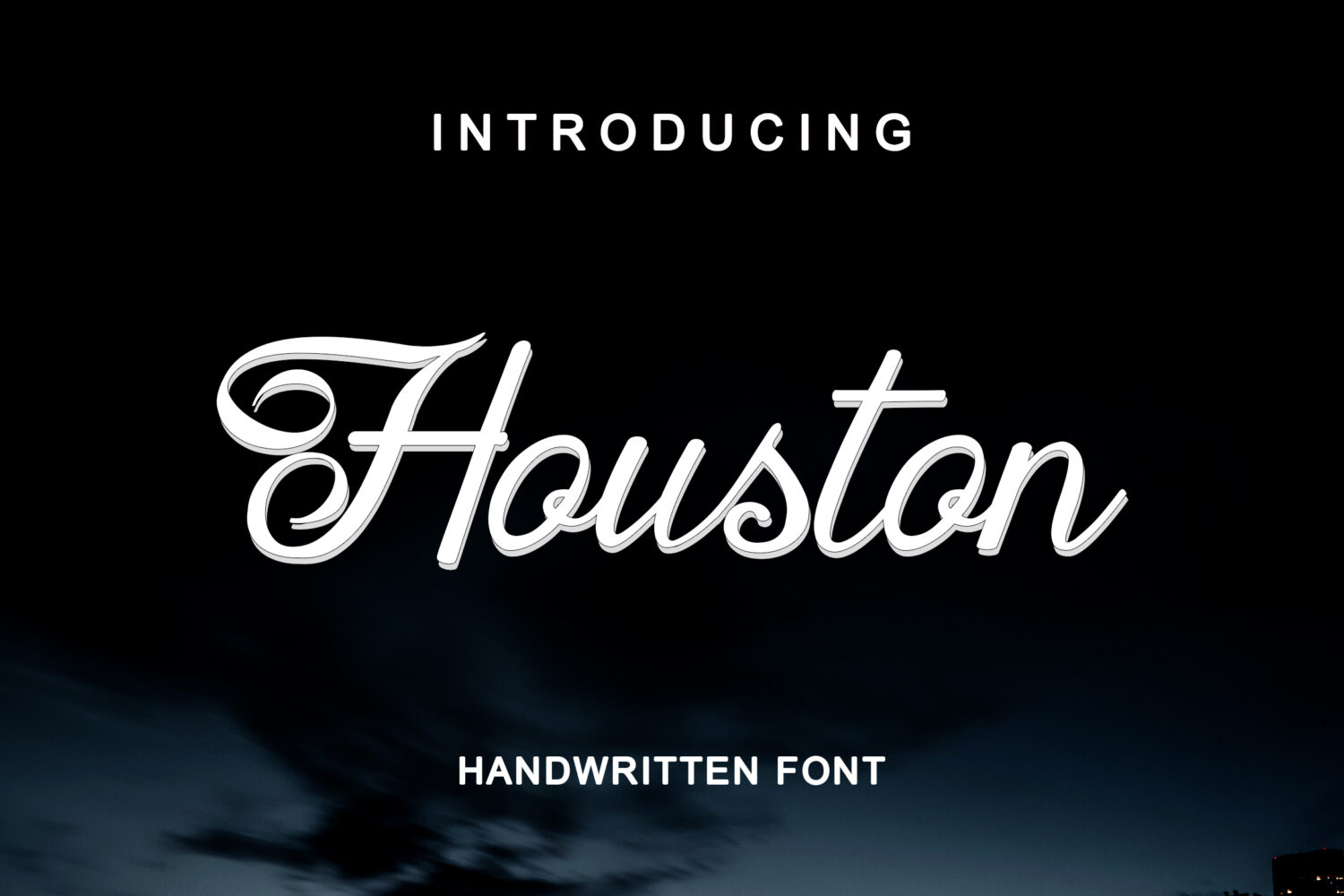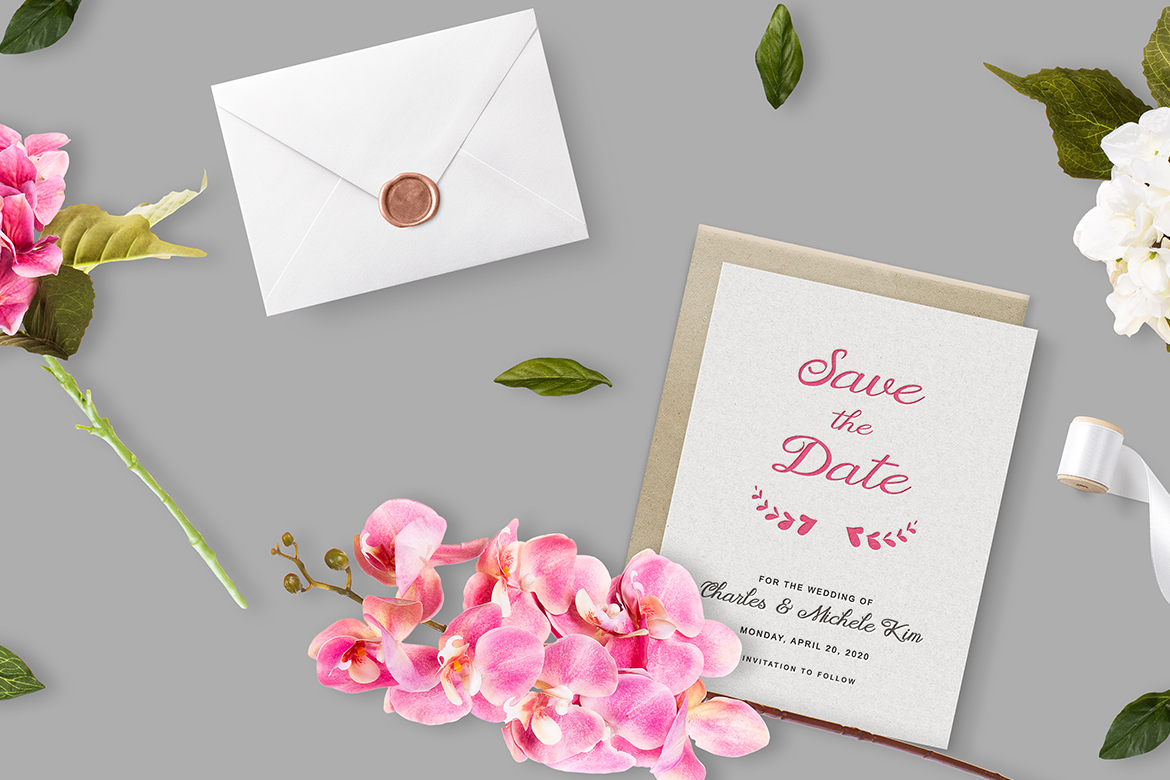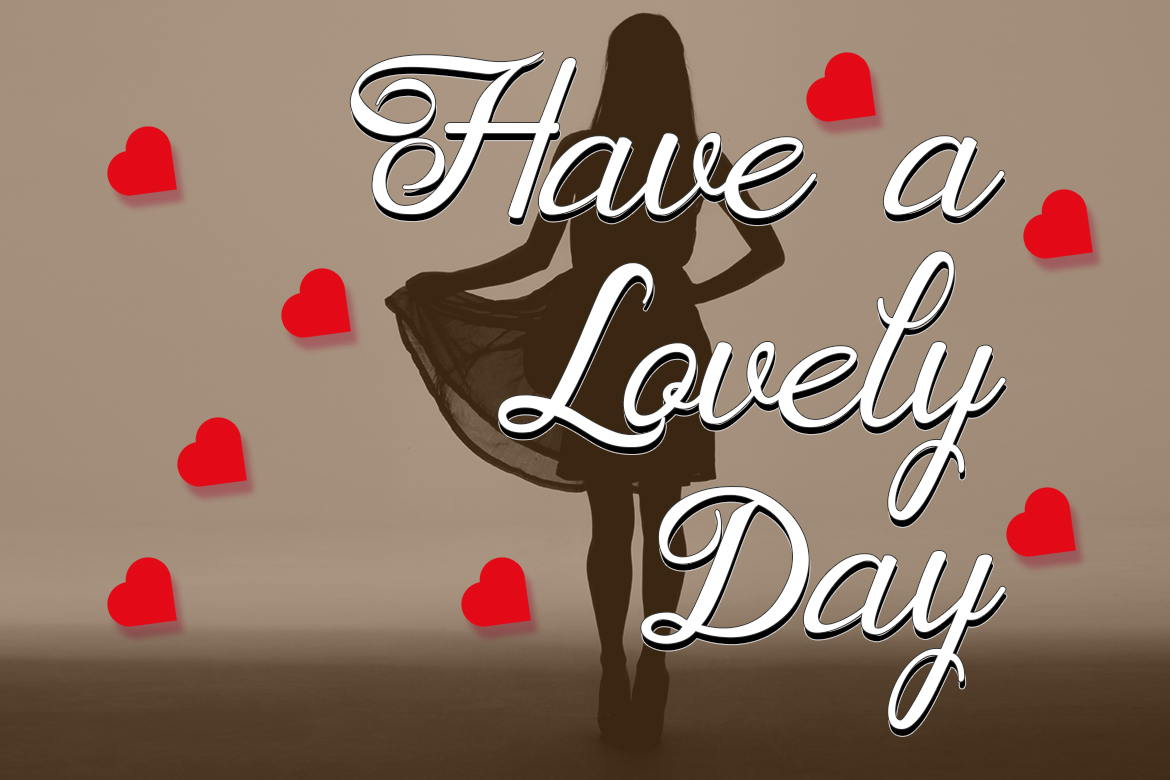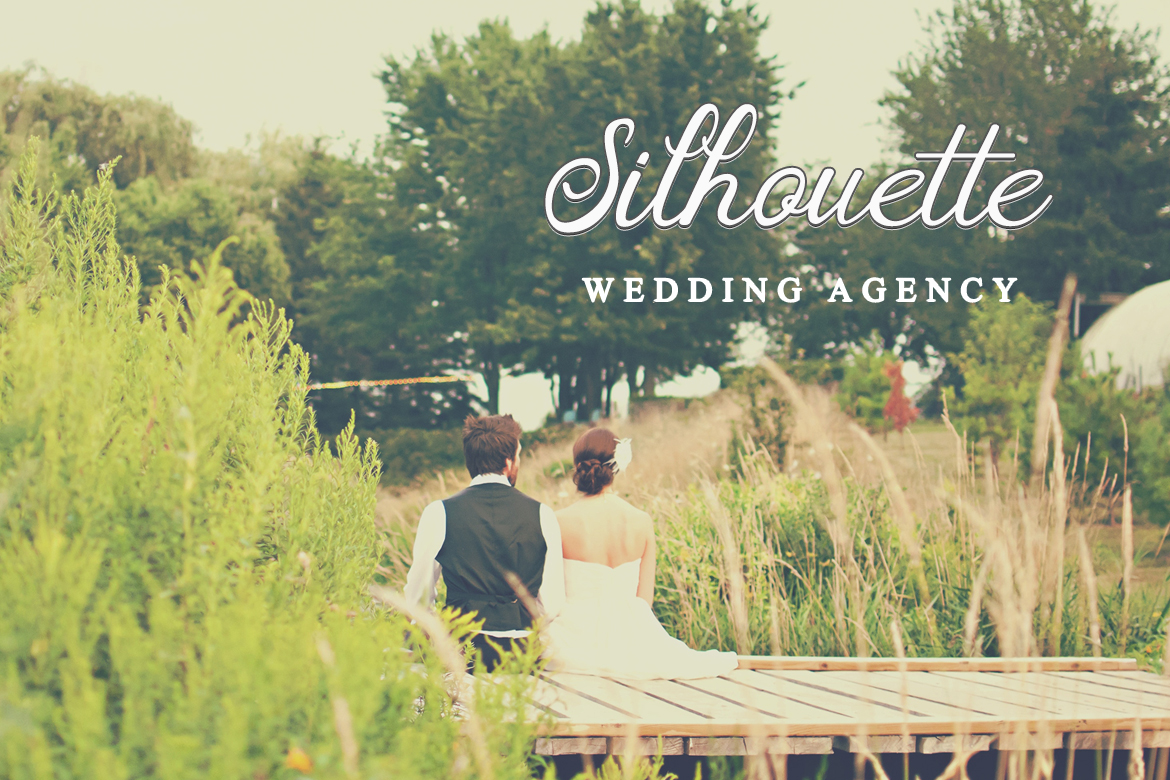
Houston Free Font
Houston Free Font is a handwritten font in modern calligraphy style. This trendy elegant brush font will allow you to create awesome branding materials, beautiful logos, cards, quotes, wedding invitations, overlays, presentations, and any other interesting projects. This free typeface was designed by a talented Ayah Phoen. If you like it don’t forget to check out the full version.